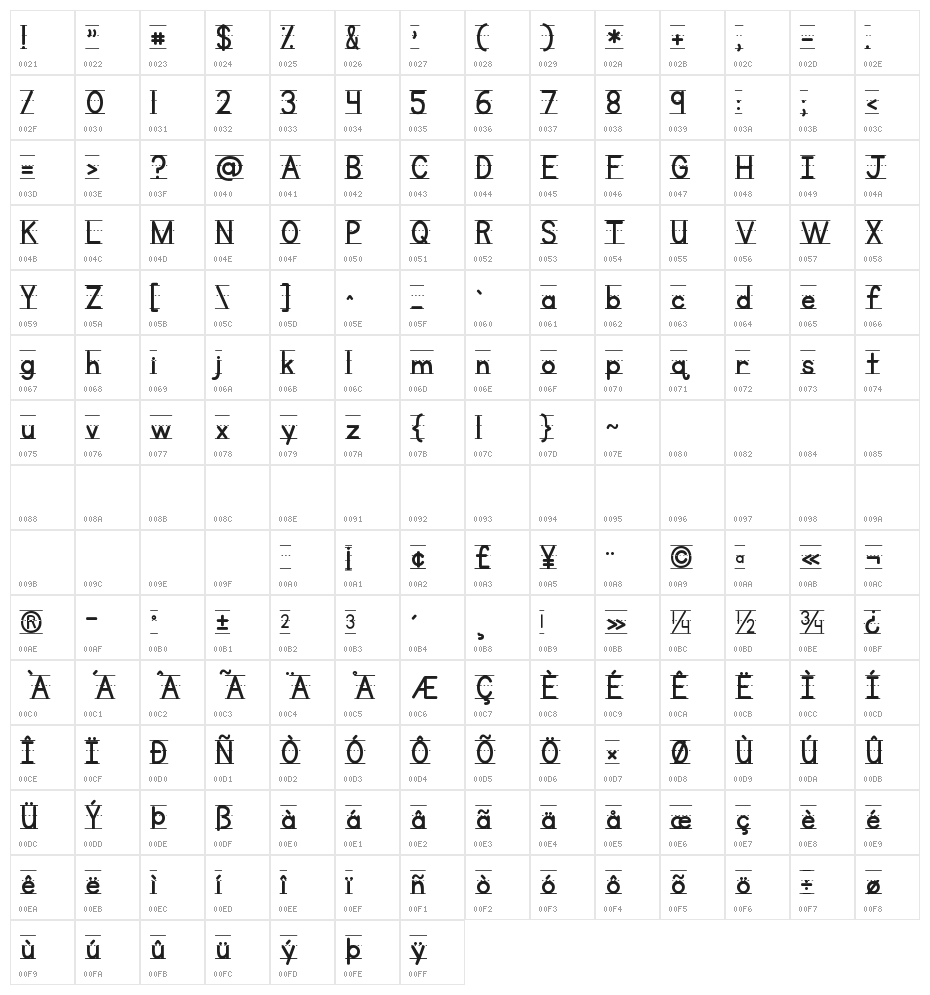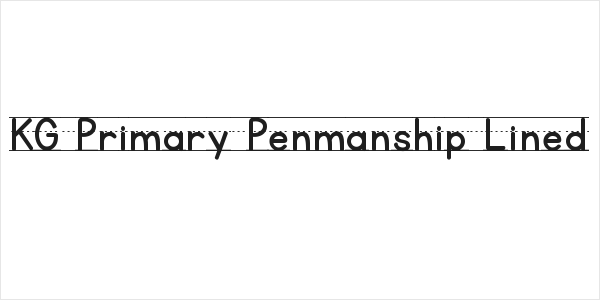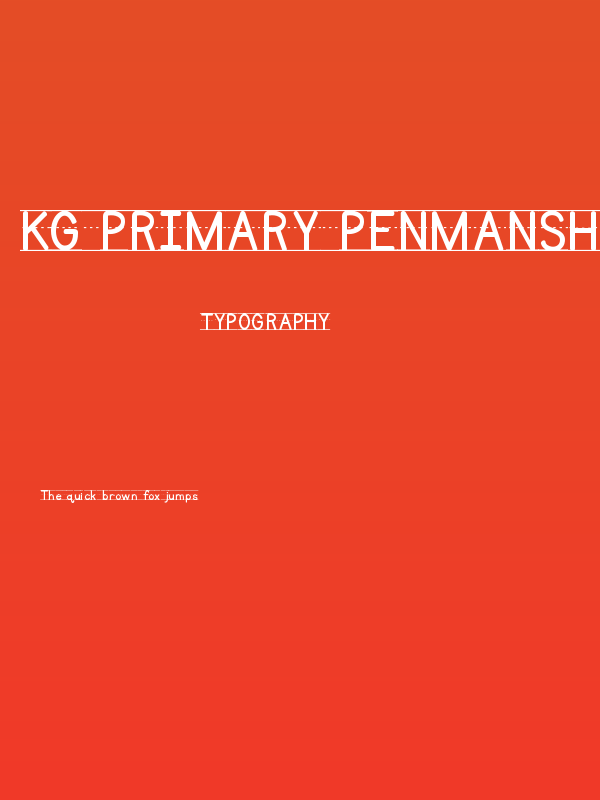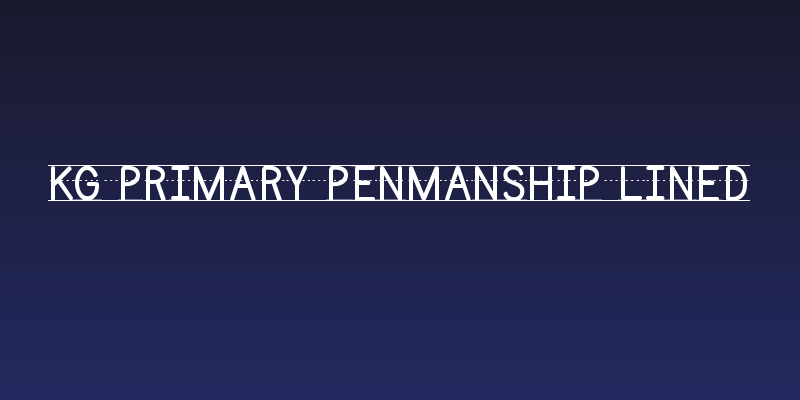
KG Primary Penmanship Lined Font
KG Primary Penmanship Lined Description
This font is designed to mimic traditional penmanship styles used in primary education. It features clear, rounded characters with consistent stroke widths, making it highly legible for young learners. The letters are evenly spaced and aligned on a dotted line, which aids in teaching proper letter formation and spacing. The font includes both uppercase and lowercase letters, numerals, and a variety of punctuation marks. Its simplicity and clarity make it an excellent choice for educational materials aimed at children.
| Use Case | Educational materials, handwriting practice. |
| Proposed Projects | Ideal for educational materials, children's books, handwriting practice sheets, and classroom resources. |